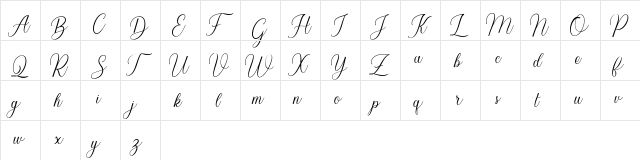
Balestya normal Regular
| Foundry | Sizimon |
| Designer | Faisal Tanjung |
Design Context for Balestya normal Typeface
Balestya normal is a composed and adaptable typeface that performs quietly and consistently across a wide range of design contexts.